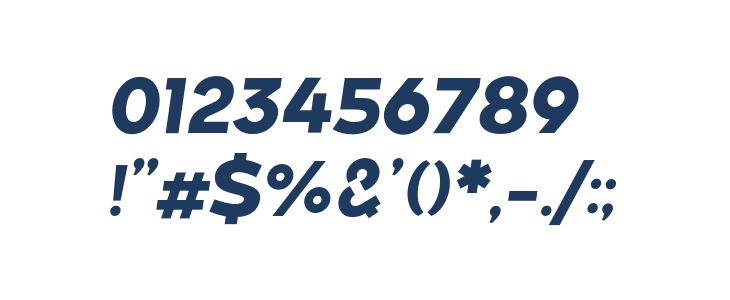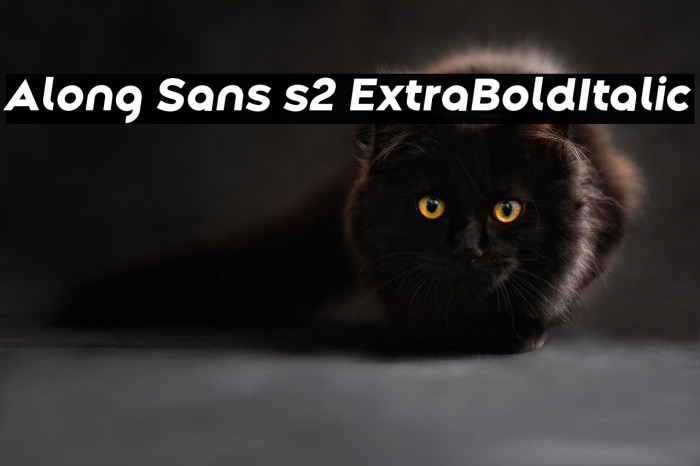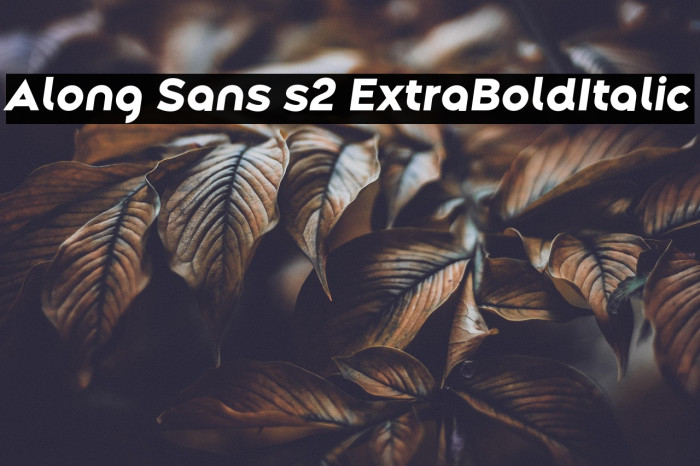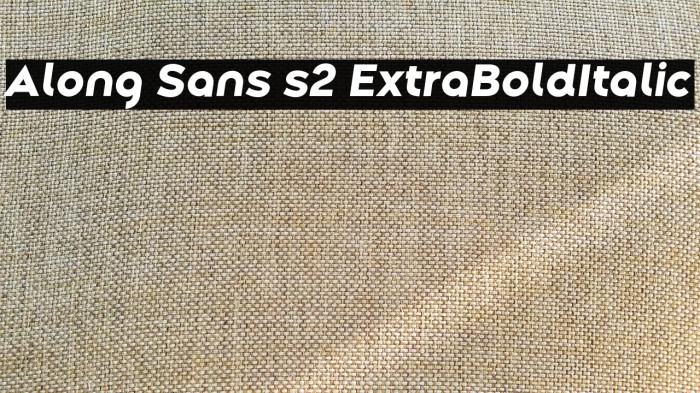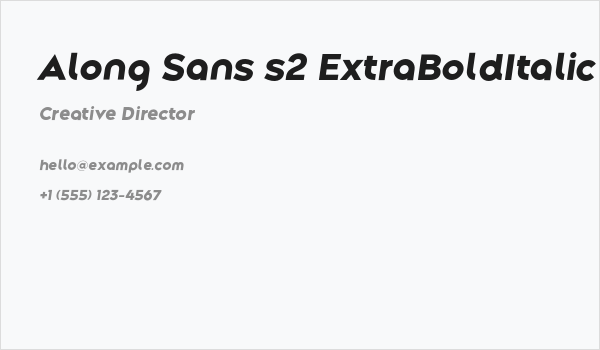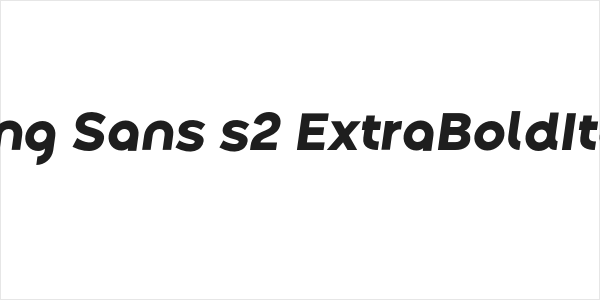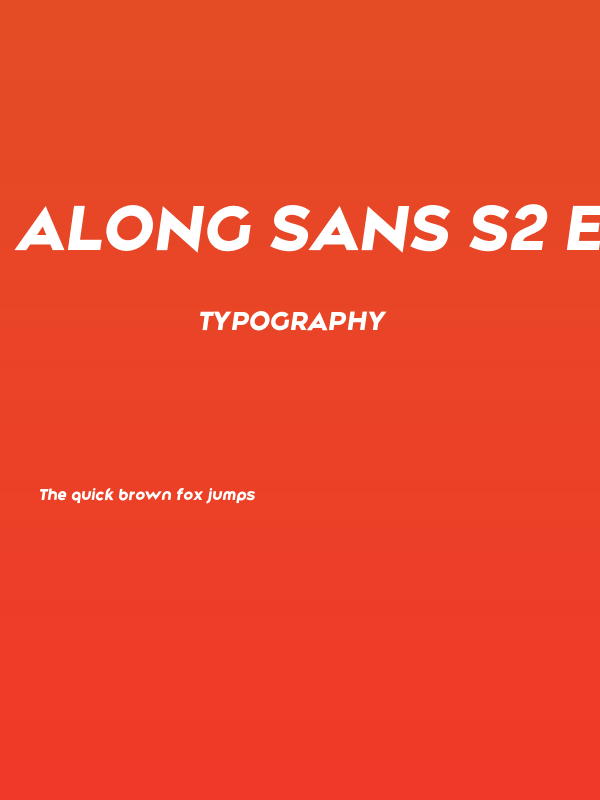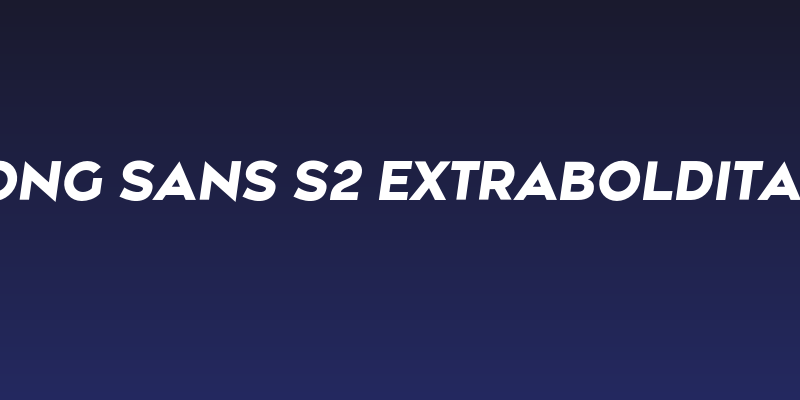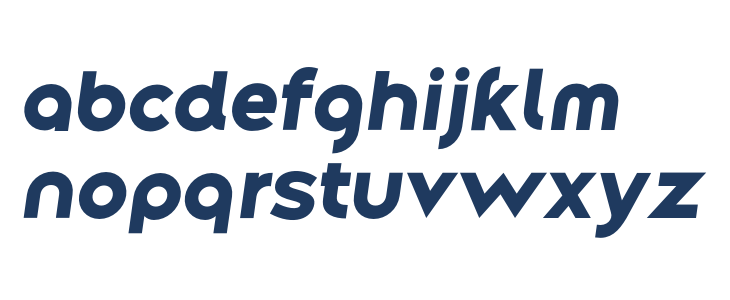
Along Sans s2 ExtraBoldItalic Font
Along Sans s2 ExtraBoldItalic Description
This font features a bold and dynamic style with a strong emphasis on geometric shapes. The letters are slightly slanted, giving an italicized appearance that adds a sense of motion and modernity. The strokes are thick and consistent, contributing to a robust and impactful visual presence. The characters are well-spaced, ensuring readability while maintaining a compact form. The numerals and special characters follow the same bold and italicized design, ensuring uniformity across all elements. This font is ideal for making statements and capturing attention with its assertive and contemporary look.
| Use Case | Headlines, Logos, Advertising |
| Proposed Projects | Ideal for branding, advertising, headlines, and digital media where a strong, modern presence is desired. |